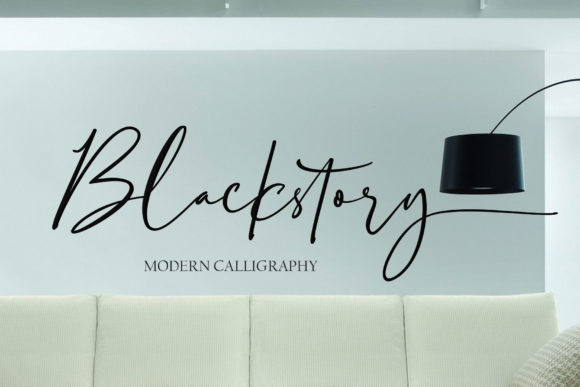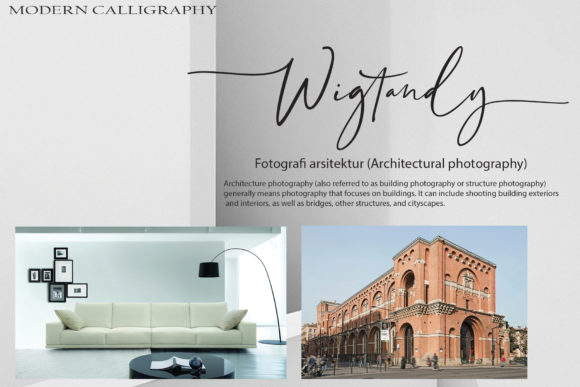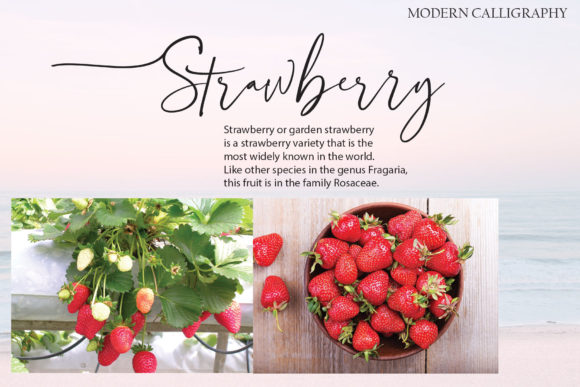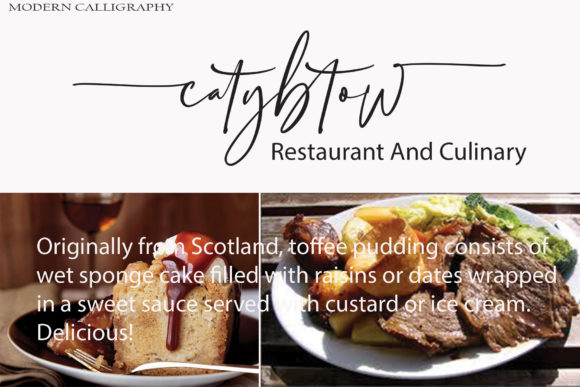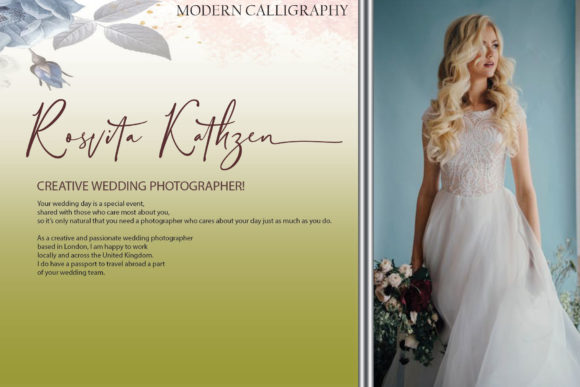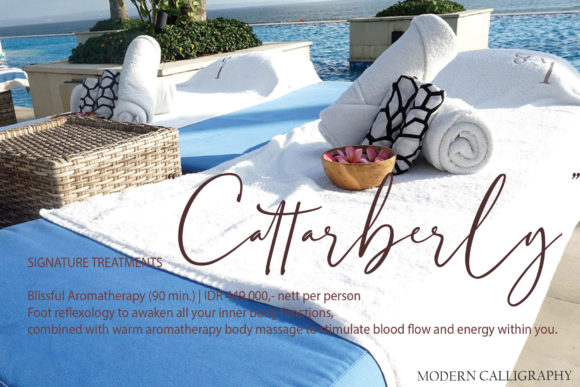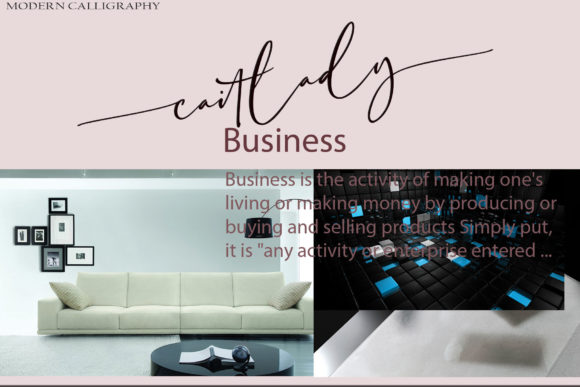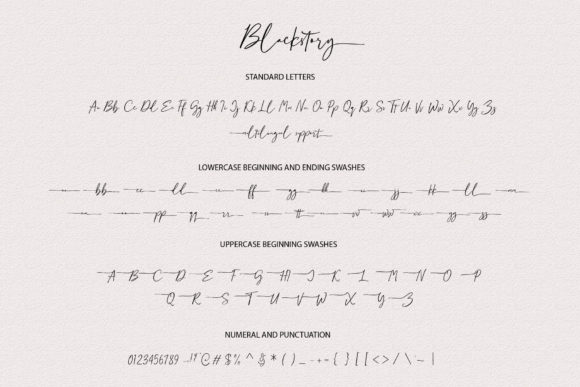
HomeScript FontsBlackstory Font Script Fonts Blackstory Font FacebookXPinterestWhatsApp Blackstory Font Poster 2 Blackstory Font Poster 3 Blackstory Font Poster 4 Blackstory Font Poster 5 Blackstory Font Poster 6 Blackstory Font Poster 7 Blackstory Font Poster 8 Blackstory Font Poster 9 About Blackstory Font Blackstory is an incredibly bold and charming script that will deliver any message with confidence and style. DOWNLOAD ON CREATIVE FABRICAThis font is sold and delivered by Creative Fabrica. Font Canyon may earn a commission if you buy through this link. People also explored Blink Magic Unicorn Font Miracle Christmas Font Funnel Cakes Font Yildiz Juliaguz Font Clifford Font Bqtrack Font Elfmount Font Bulandari Font 324 0 TagsBlackstory Font Previous articleBe Happy FontNext articleGatheline Font LEAVE A REPLY Cancel reply Comment: Please enter your comment! Name:* Please enter your name here Email:* You have entered an incorrect email address! Please enter your email address here Website: Save my name, email, and website in this browser for the next time I comment. Personal Use Free The Pottery Personal Use Free Read more about this font Rookie Mastering Personal Use Free Read more about this font Harmony Personal Use Free Read more about this font BD Fluke Personal Use Free Read more about this font BLOG How to Install and Use Fonts on Windows, macOS, and Web Projects How to Install and Use Fonts on Windows, macOS, and Web Projects Fonts are a crucial part of design and branding. Whether you’re designing a... Modern Sans-Serif Fonts That Brands Love in 2025 Exploring Font Trends Top 10 Handwritten Fonts That Elevate Your Designs